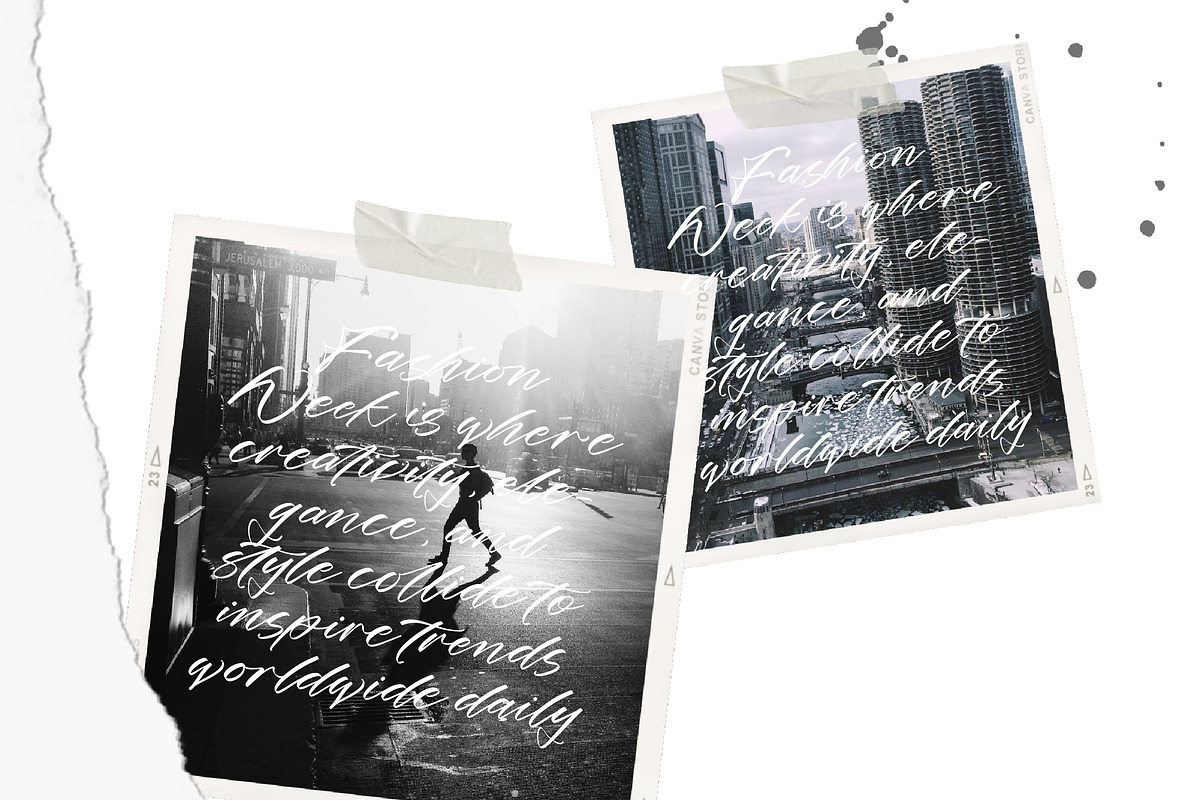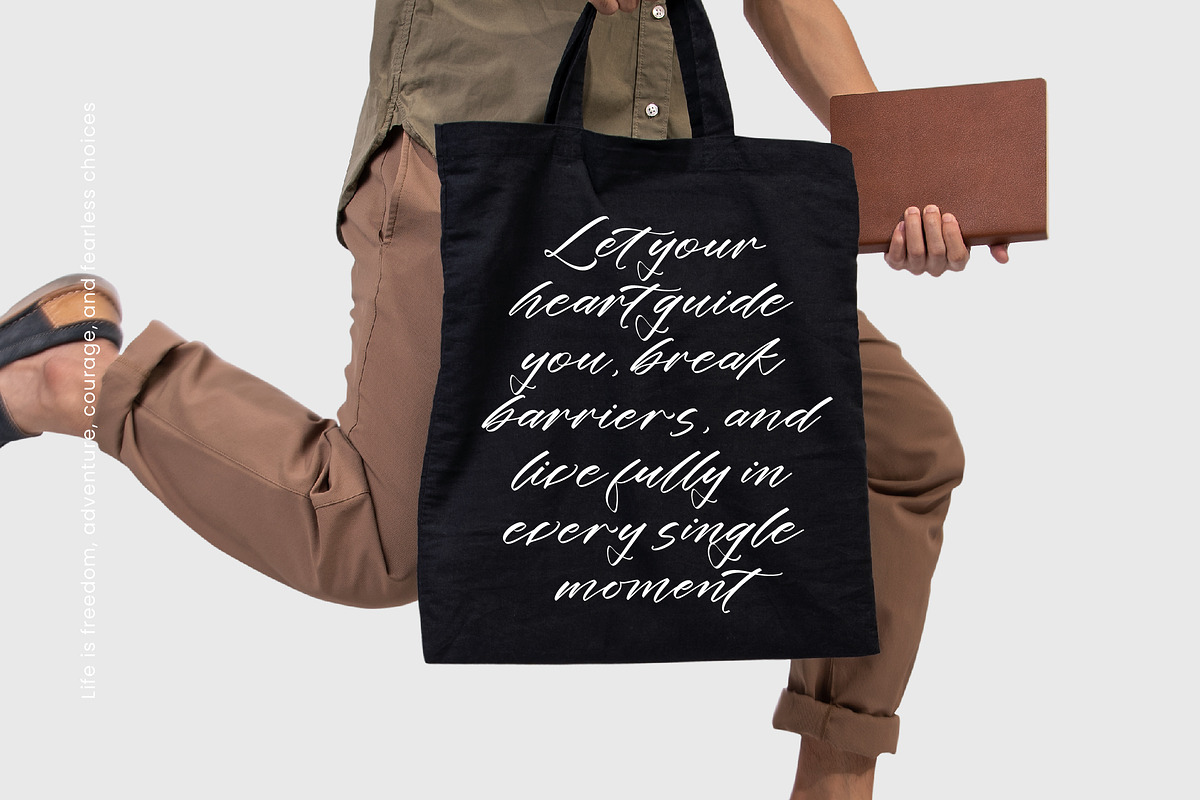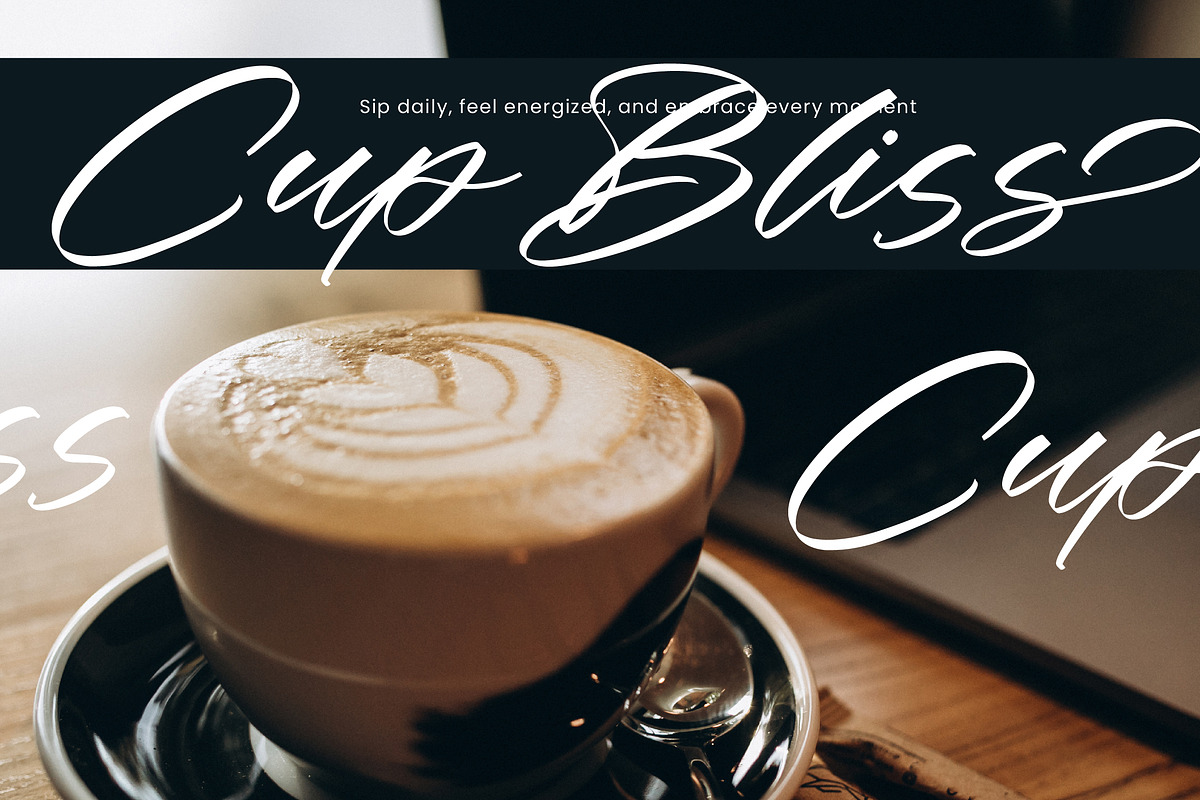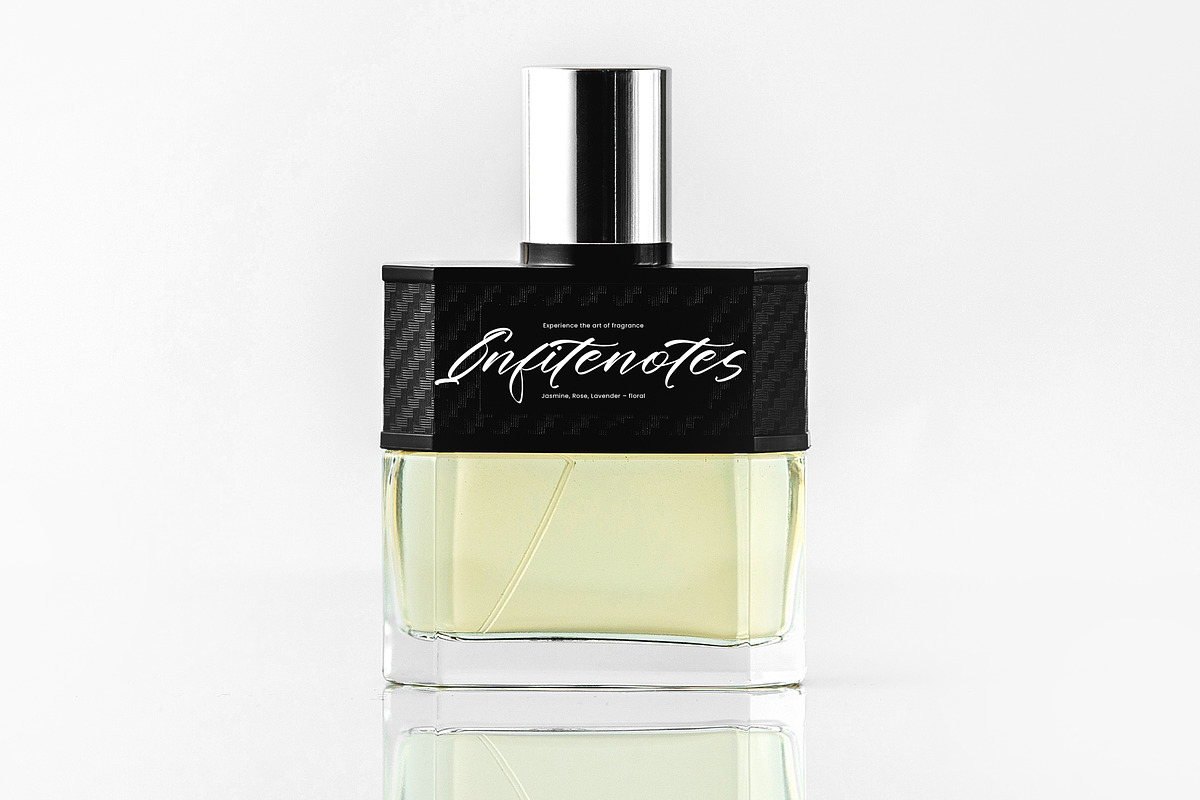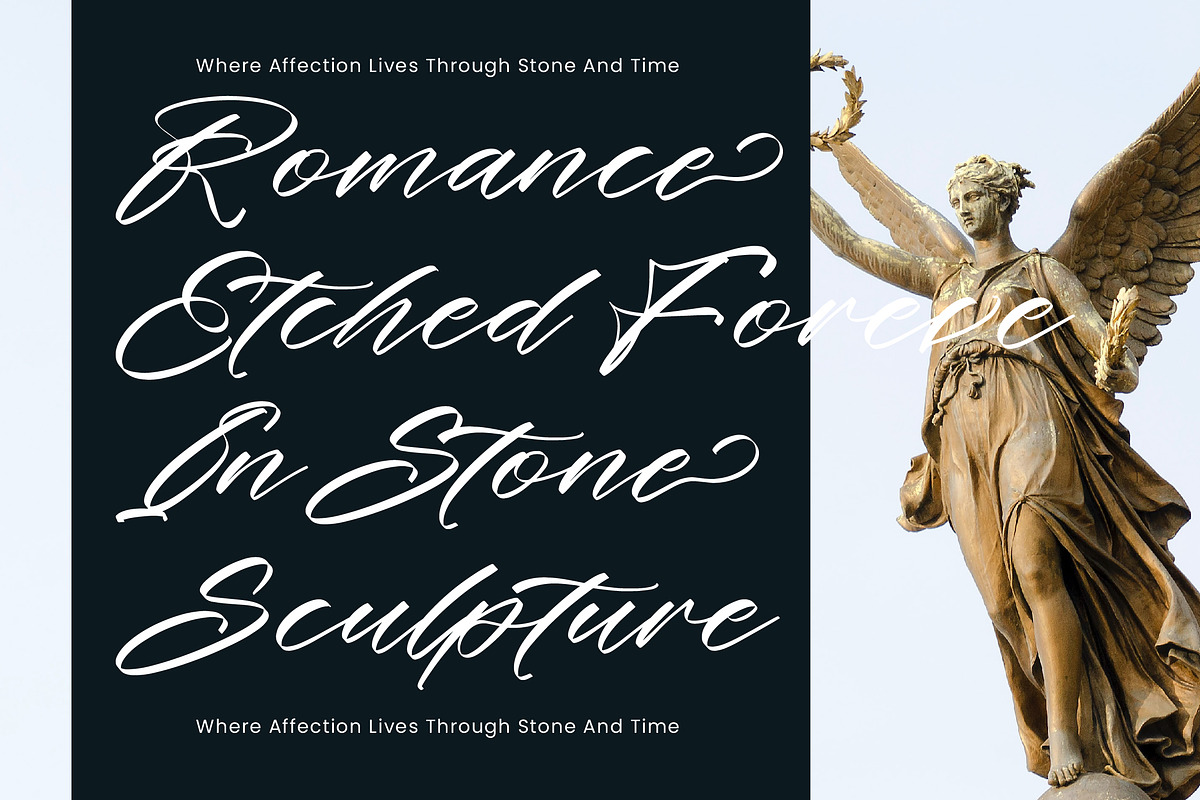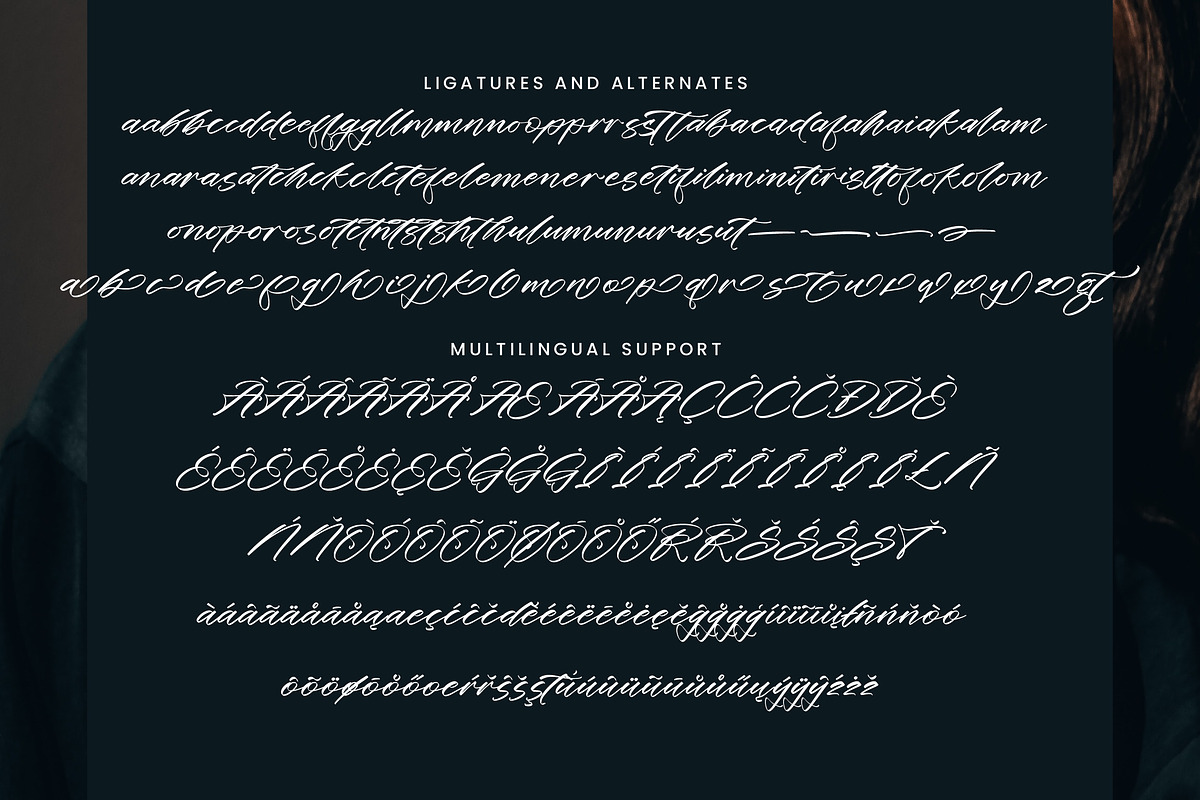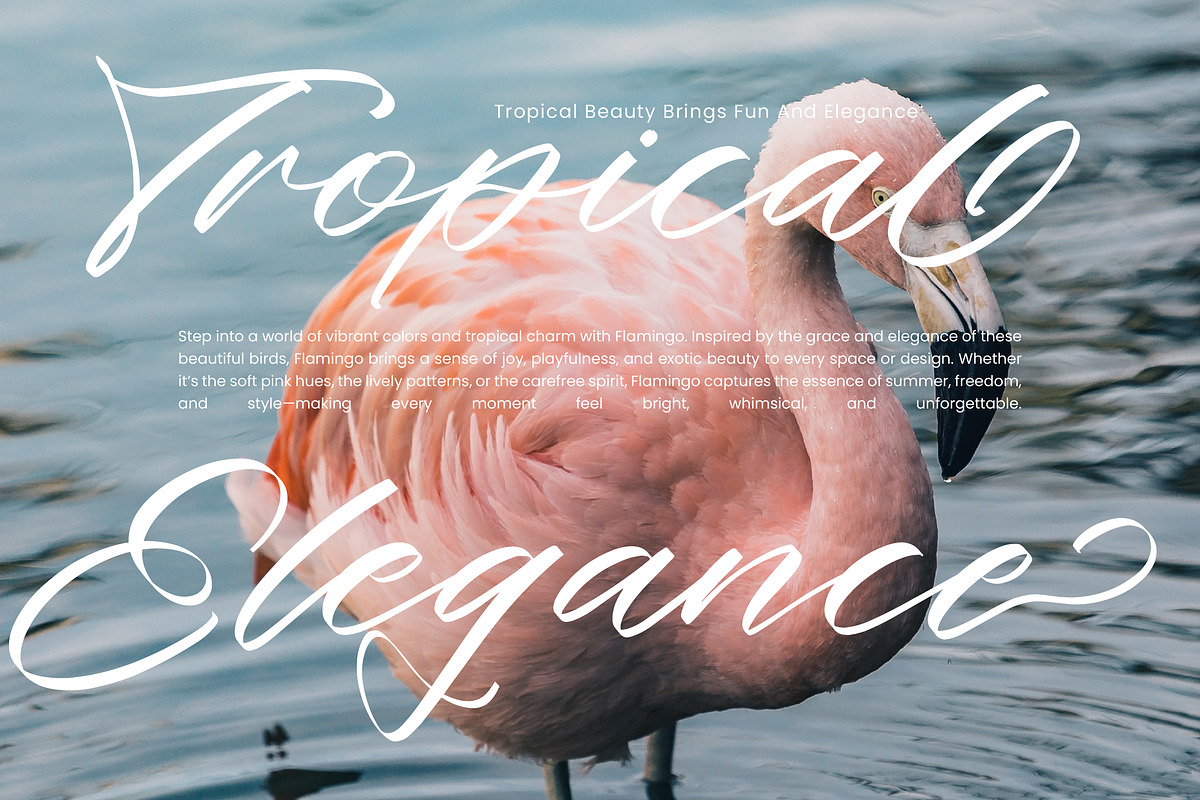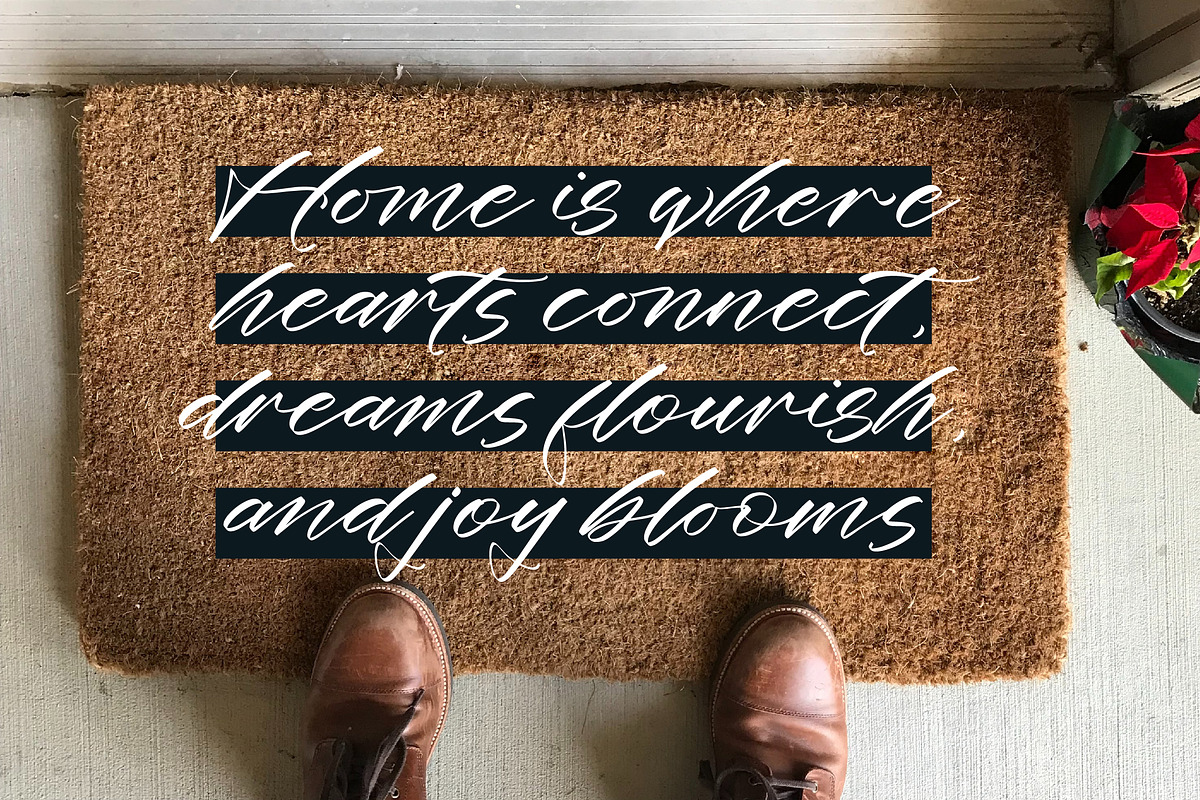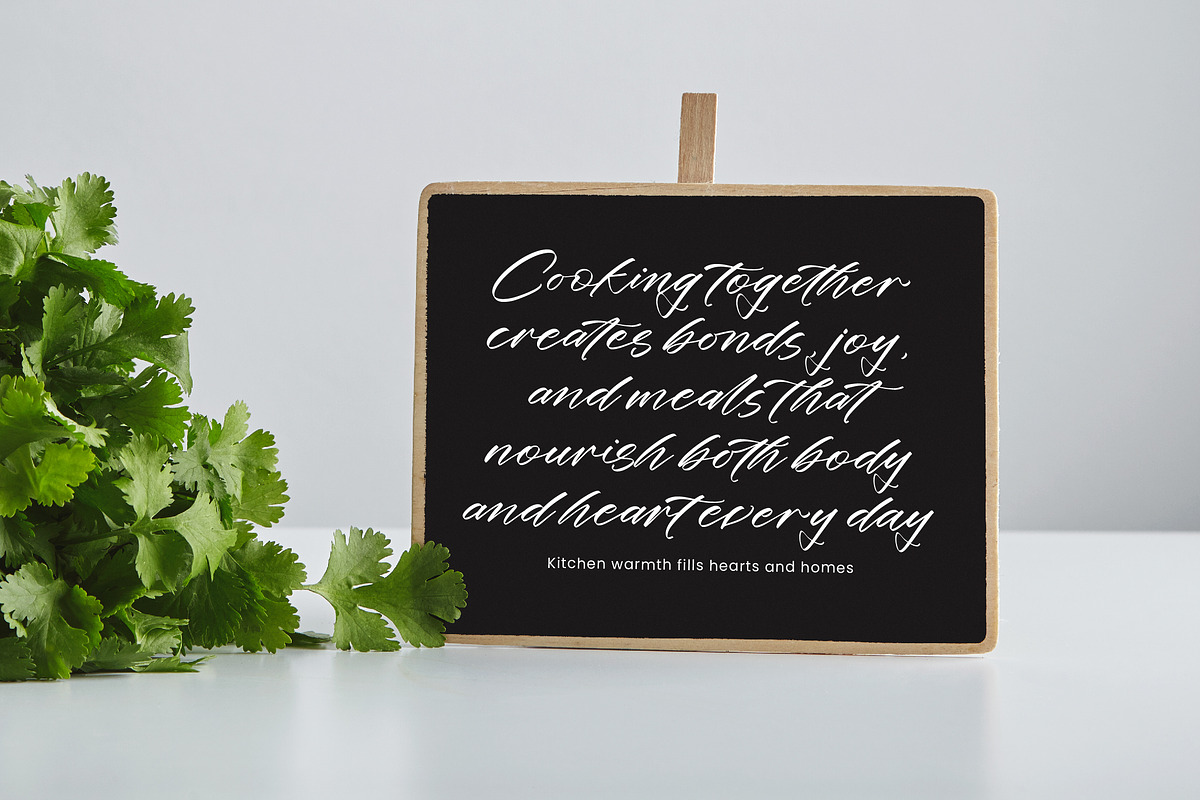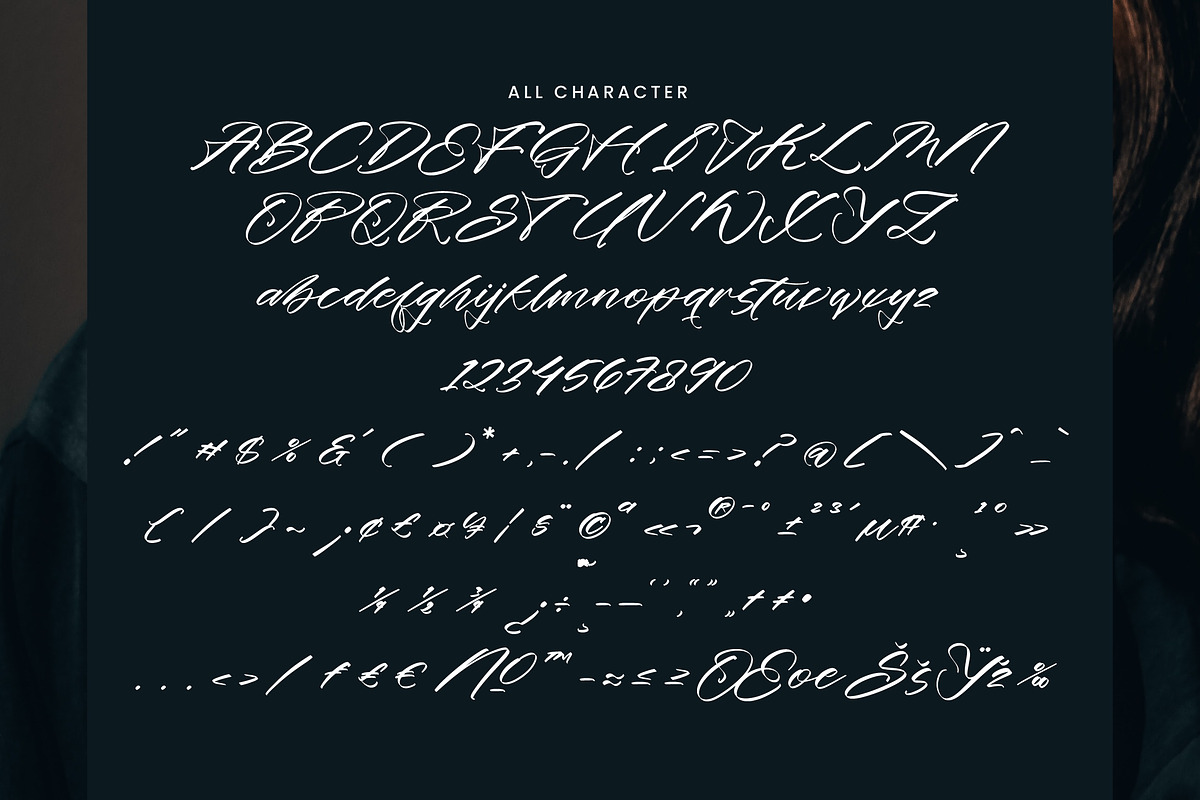
Butter Whisk Modern Signature
Butter Whisk – Modern Signature Script
Butter Whisk is a modern signature script font crafted for elegance and sophistication. With its smooth curves and stylish alternates, it delivers a luxurious handwritten feel perfect for premium branding.
Great for logos, fashion branding, packaging, wedding invitations, business cards, and high-end design projects.